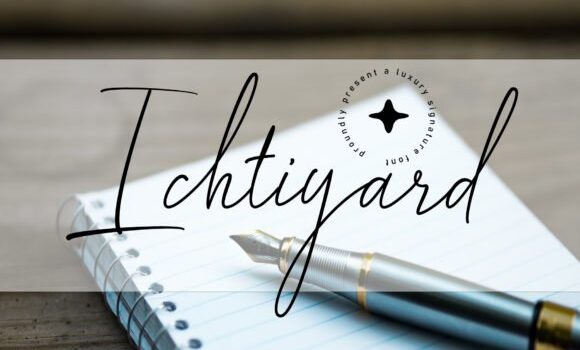
ichtiyard
Ichtiyard Font – Free Download Introduction to Ichtiyard Font Ichtiyard is a beautiful handwritten font, expertly designed to become a true favorite. 📸 Preview Gallery 5 images 📌 Product Name Ichtiyard Font 👤 Author emilly studio 📂 Category Explore ⬇️